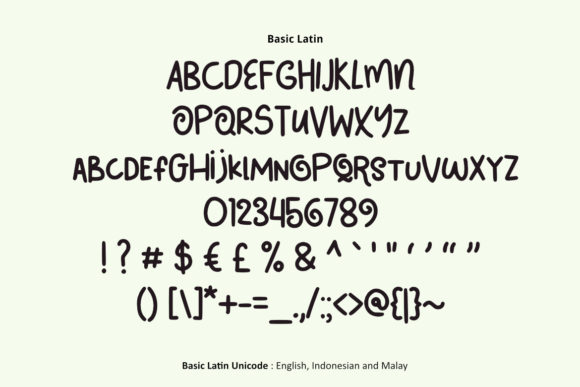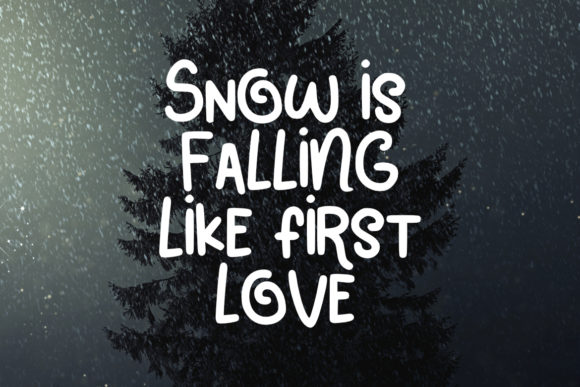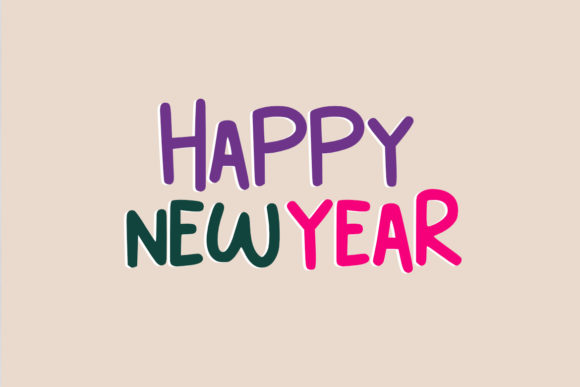
Introduction to Frozen Snow Font
Have you ever found yourself lost in the magic of a winter wonderland, snowflakes gently falling around you, and the world feeling like a blank canvas waiting to be filled with creativity? That’s exactly where the Frozen Snow Font comes in – a whimsical display font that captures the essence of a snow-kissed world. Its clean and quirky design makes it the perfect fit for all your creative projects, from logos and branding to social media and crafty DIY endeavors.
Whether you’re a seasoned designer or just starting to explore your creative side, the Frozen Snow Font is a valuable resource to have in your toolkit. Its high-quality design and versatility make it an ideal choice for any project that requires a touch of whimsy and sophistication. Plus, with its transparent background, you can easily integrate it into any design without worrying about background distractions.
Key Features of Frozen Snow Font
- High-quality, vector-based design for crisp and clear display, ideal for creative projects.
- Available in a single size, making it easy to use in various design contexts, from small text to large headings.
- Resolution is scalable, ensuring that the font remains clear and legible regardless of the display resolution.
- Unique, winter-themed design elements make it perfect for projects related to snow, winter, or holiday themes.
Honest Review: Frozen Snow Font
I recently had the chance to work with the Frozen Snow Font, and I must say it’s been a game-changer for my creative projects. This font is perfect for winter-themed designs, and its unique aesthetic is sure to captivate your audience. ✨
The font itself is highly versatile and can be used in a variety of contexts, from logos to social media graphics. It’s also incredibly easy to use, with a transparent background that makes it seamless to incorporate into any design. ✨
The quality of the font is top-notch, with crisp, clean lines and a charming, hand-drawn feel. This design resource is a must-have for any serious designer, and I highly recommend it to anyone looking to add a touch of winter magic to their work. ✨
- Highly versatile and adaptable
- Easy to use with a transparent background
- High quality with crisp, clean lines
- Perfect for winter-themed designs
- Not suitable for every type of design
- May not be as versatile as other fonts
Overall, I’m thoroughly impressed with the Frozen Snow Font. It’s a valuable addition to any designer’s toolkit, and I’m confident it will continue to be a popular choice for years to come. If you’re looking for a high-quality, unique font to elevate your creative project, look no further than the Frozen Snow Font. ⚠️
Frozen Snow Font
- Use a transparent background to create a sense of depth and dimension.
- Combine the font with other design elements, such as snowflakes and pinecones, to create a cohesive winter theme.
The Frozen Snow Font is perfect for a variety of creative projects, including:
- Winter-themed invitations and cards.
- Christmas and New Year’s Eve graphics and decorations.
- Winter sports and outdoor recreation designs.